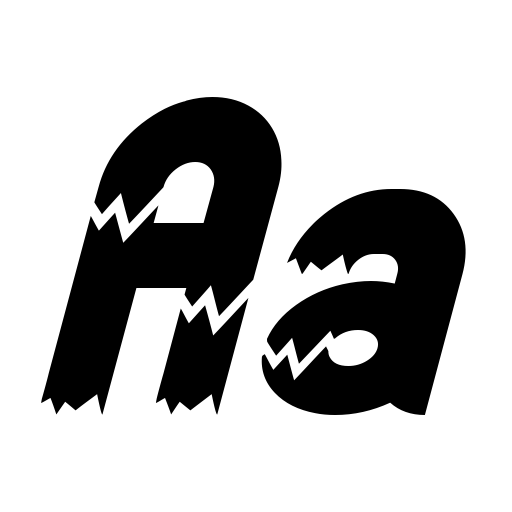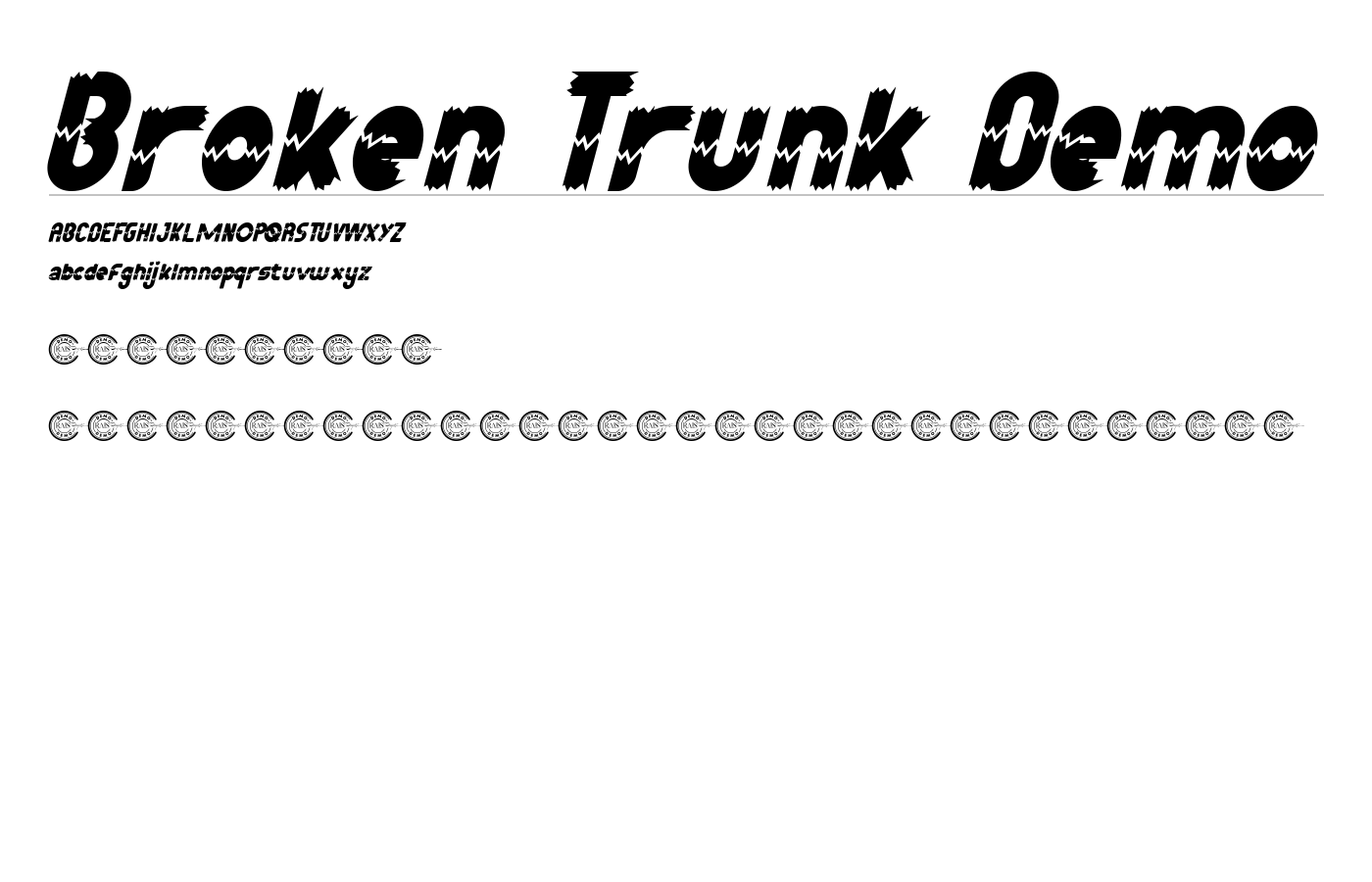
Broken Trunk Demo is a bold, sans serif font with a unique jagged, fractured style that gives it a dynamic and edgy personality. Its strong, condensed letterforms and irregular breaks create a sense of movement and energy, making it ideal for attention-grabbing headlines, posters, or branding that wants to convey a rebellious, modern vibe. This font works best in creative projects where a striking, unconventional look is desired rather than for body text or formal uses.
Broken Trunk Demo Font
About Broken Trunk Demo Font